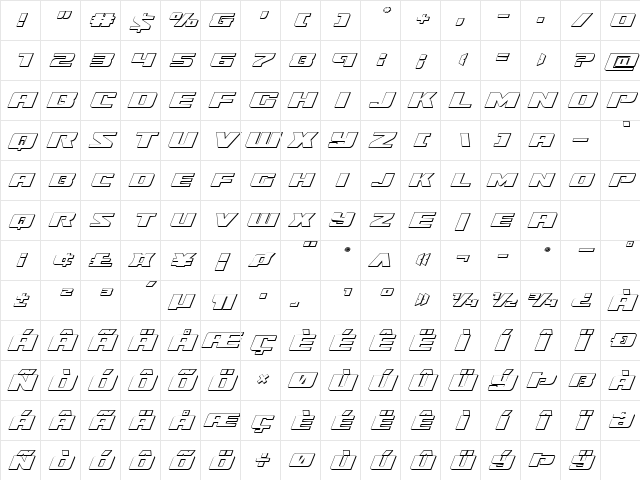
Super Brigade 3D Regular Free Font
Super Brigade 3D Regular
Design Context for Super Brigade 3D
Super Brigade 3D is a composed and adaptable typeface that performs quietly and consistently across a wide range of design contexts.